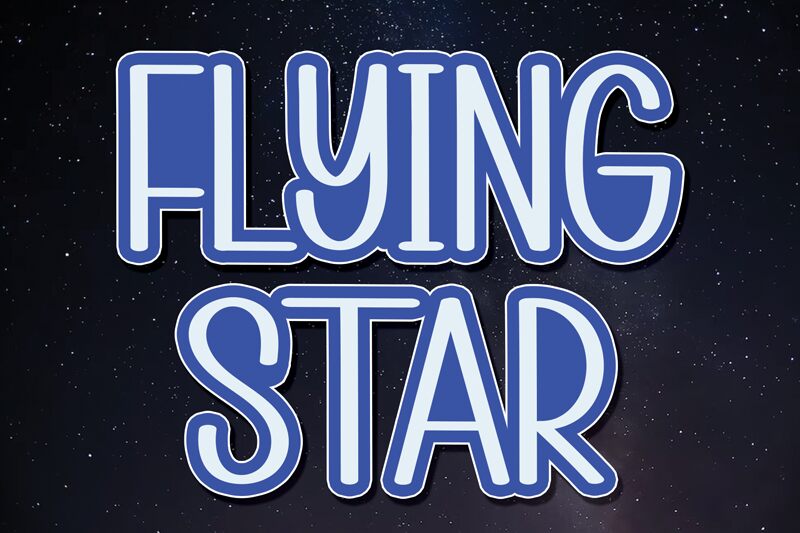
Flying Star
Flying Star font, designed by Scratchones, embodies a charming handwritten style that captures the essence of spontaneity and creative flair. Its condensed appearance enhances its visual elegance, making it ideal for projects where space is at a premium without sacrificing personality. The fluid strokes contribute to a playful yet sophisticated aesthetic, inviting viewers in with warmth and informality.
This font shines in applications such as branding for artisanal goods, invitations for vibrant events, or playful website headings. Its distinctive character adds an engaging touch that resonates well in both digital and print media. Whether you're crafting a whimsical poster or designing an eye-catching social media graphic, Flying Star will elevate any project with its unique charm and versatility.